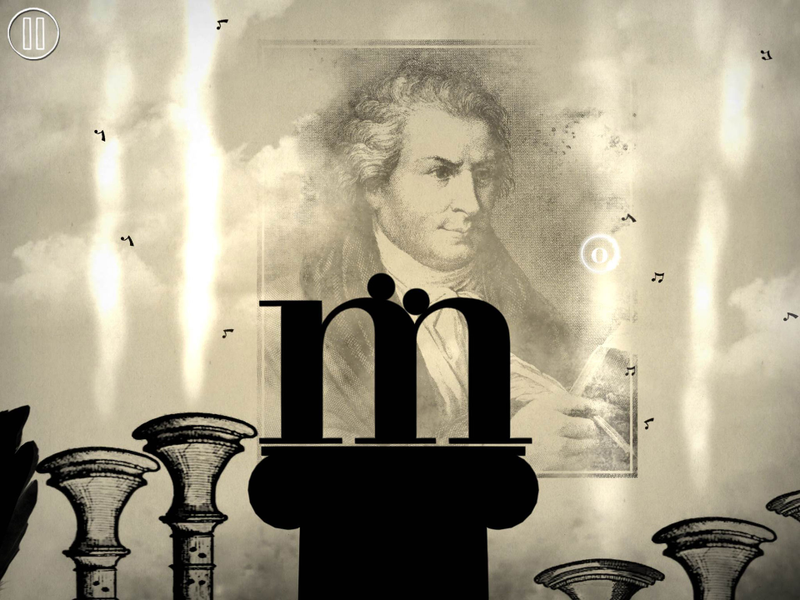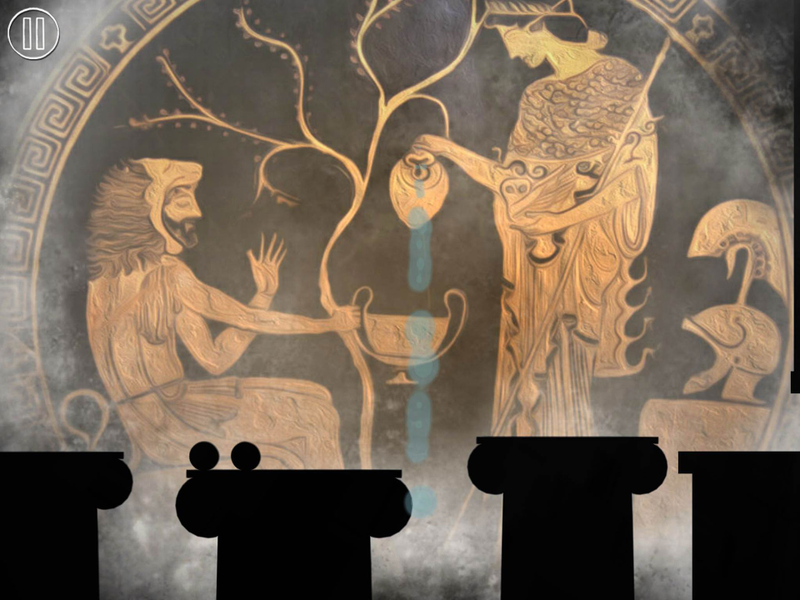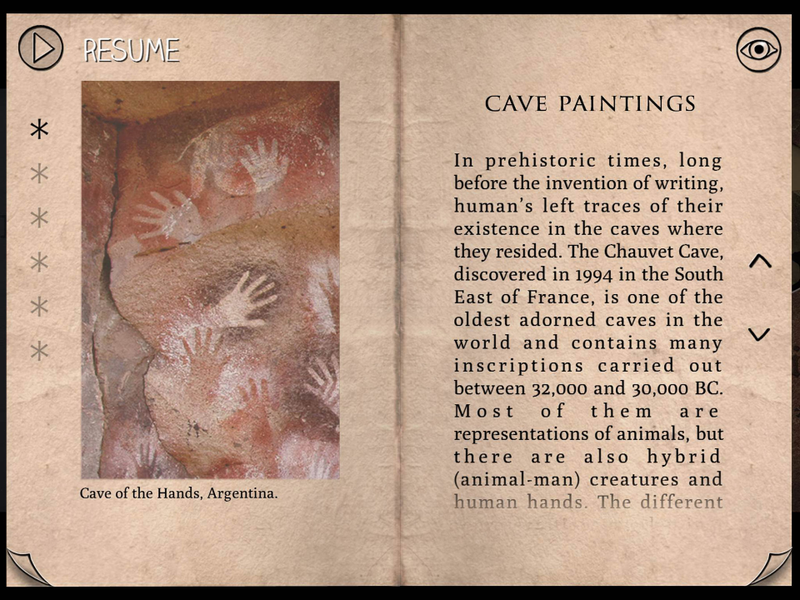
I’ve been waiting weeks to write about Type:Rider. I’ve not been this excited about a mobile game in ages. It’s all about learning the most important human achievement in the history of humans achieving things: typography ā the art and technique of arranging letters to make language visible. Without it, kjfdflkjhsdflsdjfhsdg.
Having a language people can speak and understand is great, but until the advent of horrible internet videos, most people lacked the means to chatter on endlessly about their cat to large numbers of complete strangers. They could, however, write an essay about their cat and share it on newsgroups or their Geocities page, a feat impossible without typography.
Type:Rider is a playable exploration and celebration of the written and printed word. It’s the most amazing way to learn about a very important thing.
You play as a colon, essentially. Two dots, rolling their way through ten stages of typographic history. You begin in prehistoric times, rolling and jumping your explanation of an enumeration through dank caves adorned with the scribblings of our earliest ancestors.
An asterisk appears.* Collecting it unlocks a page of information on early cave paintings.
*asterisks look like this
Next comes cuneiform script. Then Egyptian hieroglyphics. Chinese characters. Each new stage contains an informative asterisk. In each level the background changes to reflect the era.
At first, playing Type:Rider is a simple stroll through the early days of written communication. There’s rolling, a little hopping, and the odd switch or two, but it’s nothing too complex. It’s all about setting the scene ā soothing mysterious music and simple gameplay to reflect a simpler time.
The game, as games do, slowly builds in complexity. The next set of stages, covering the rise of Gothic script, sees our dots riding across the surface of heavy, stylized words while children chant in the background. We’re still collecting information, but now we’re also tasked with picking up letters in alphabetical order. We learn of monks and Johannes Gutenberg and the letterpress. The platforming is more complicated, but not overly so.
By the time we the Didot stages we’re rolling across levers to generate wind, riding the currents rising from the woodwinds playing the stages simple, pretty theme.
There are ten typographic worlds to explore here, from those cave paintings to the major font families (yes, Comic Sans is included) to modern day pixel art. By the end of the game you’ll feel fulfilled, enlightened and enriched. You won’t know more about fonts than you need to. You’ll know exactly as much as you should.
The product of European cultural TV channel Arte and French developer Cosmografik, there is certainly learning involved with Type: Rider, but it’s presented as a challenge and as a series of collectibles, to confuse those of you who resent such things into enjoying yourselves. That’s the power of typography in practice.